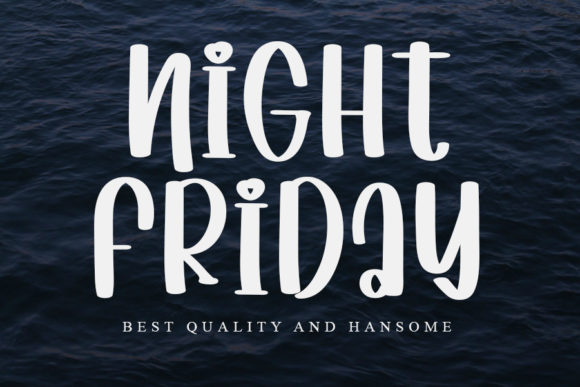
Night Friday Font
Uplift your brand's presence with the captivating Night Friday font! Embrace a world of exquisite designs that resonate with your discerning taste.
Indulge in a breathtaking fusion of elegance and modernity. Night Friday's meticulous curves and graceful strokes evoke a timeless charm that will leave an unforgettable mark.
Elevate your business correspondence to new heights. Each letter in Night Friday exudes professionalism and sophistication, transforming invoices and documents into masterpieces of communication.
Unleash your creativity with endless possibilities. Night Friday is not just a font; it's an artistic haven where your imagination can soar. From eye-catching Instagram posts to heartfelt calligraphy projects, this font empowers you to create visual symphonies that captivate and inspire.
Embrace the transformative power of Night Friday today and elevate your brand's aesthetic to new dimensions. Each stroke, each letter, and every word crafted with this font will carry the essence of your unique style and leave a lasting impression on the world.